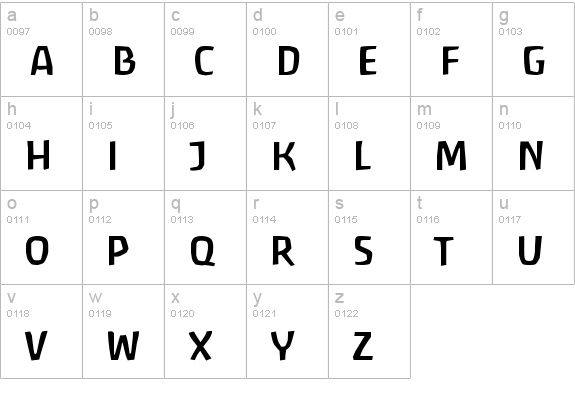
Antropos Freefont Font Details
Antropos Freefont is a stunning and versatile typeface that effortlessly combines modern aesthetics with classic elegance. This font boasts clean lines and graceful curves, making it perfect for a wide range of design projects. Whether you are creating a sleek website, designing eye-catching posters, or crafting elegant branding materials, Antropos Freefont has got you covered. The best part? Antropos Freefont is completely free to download! That's right, you can access this exquisite font at no cost on FontsMarket.com. Embrace the beauty and versatility of Antropos Freefont in your next project and watch as your designs come to life with sophistication and charm. Download now and elevate your typography game with this exceptional typeface.